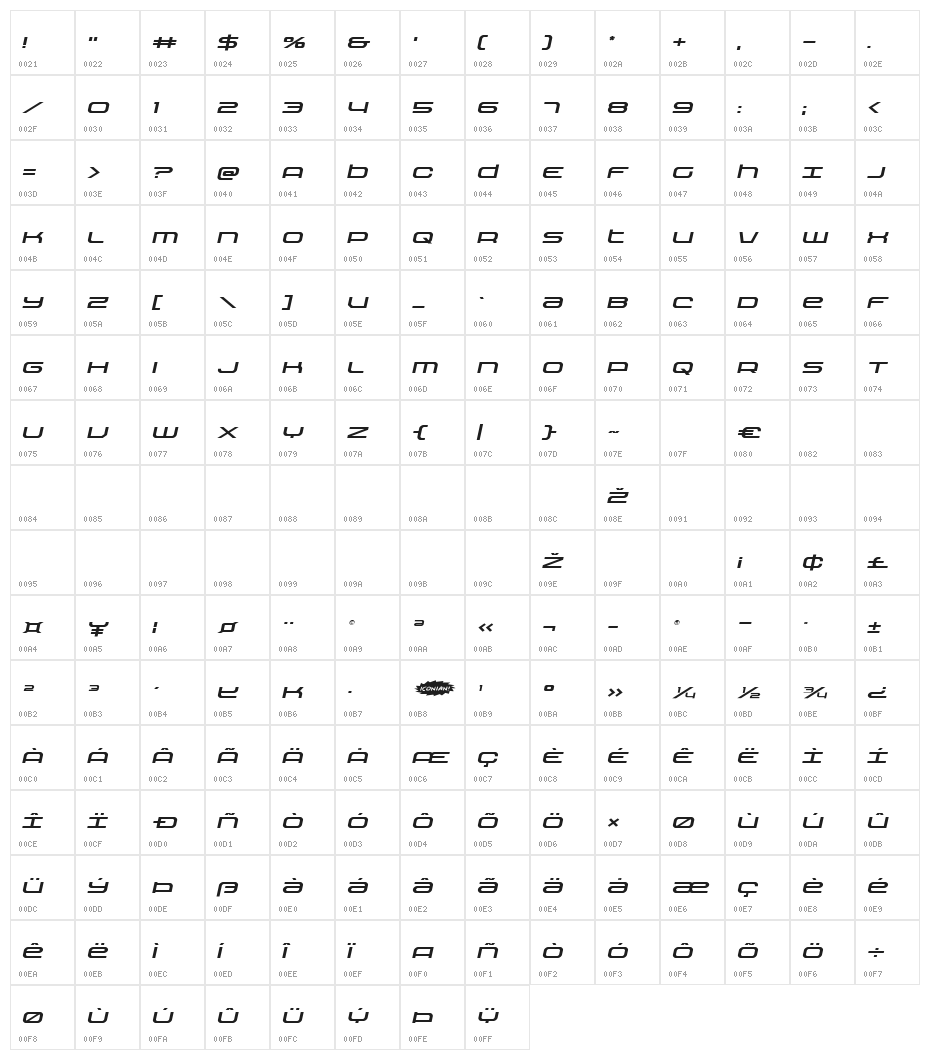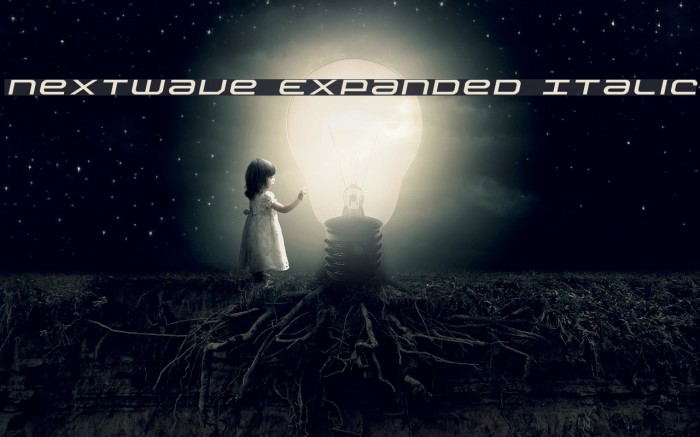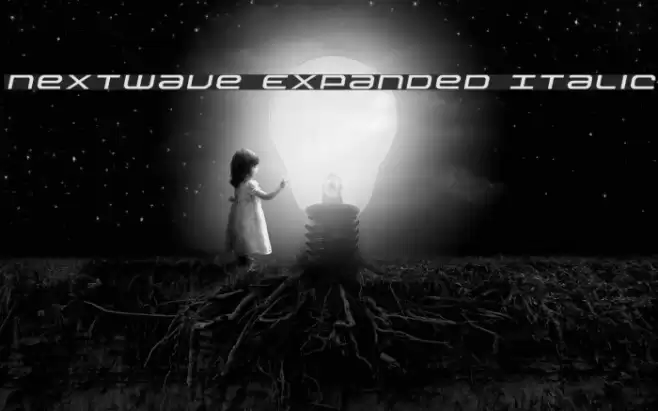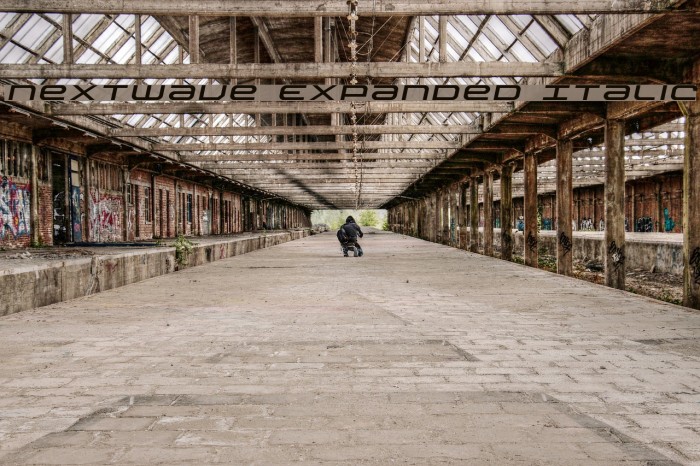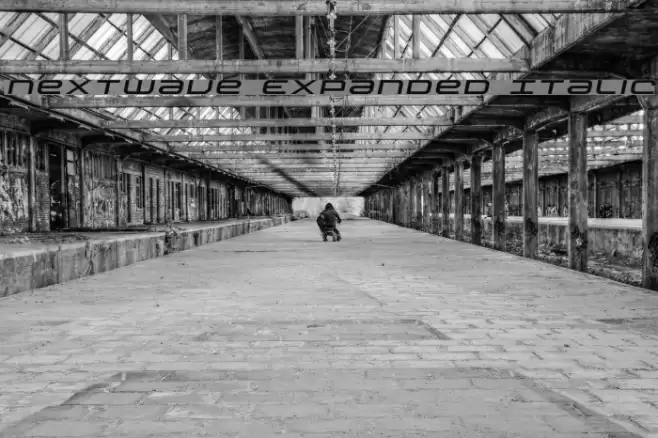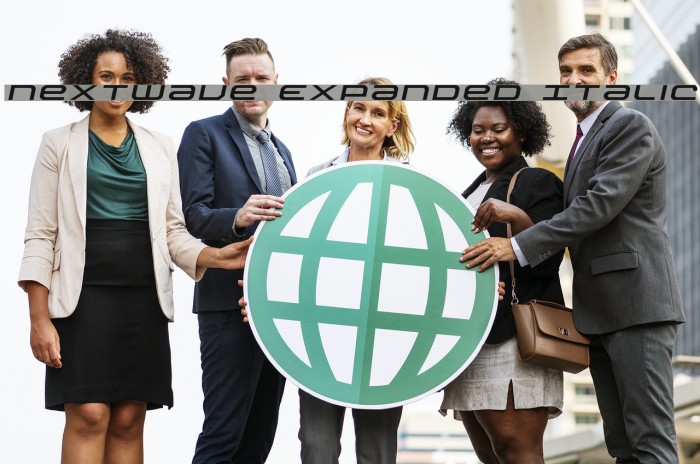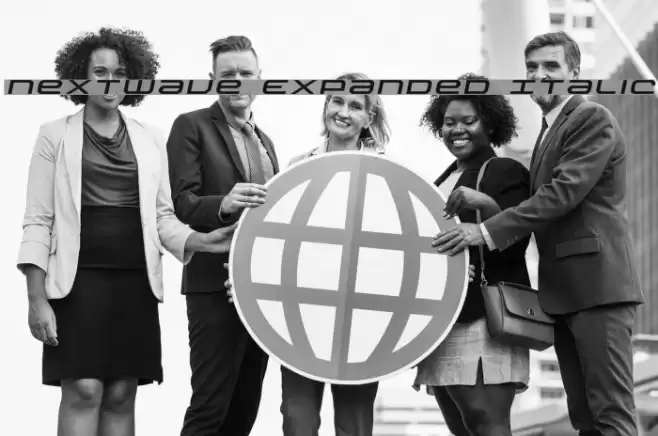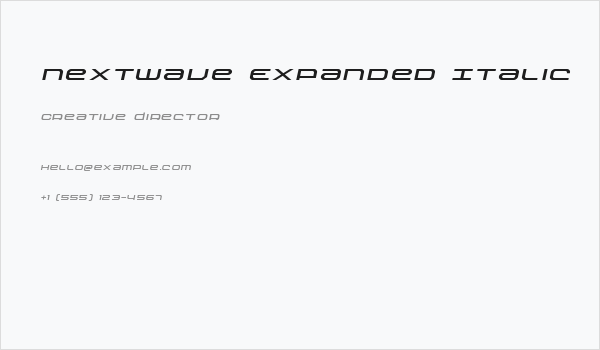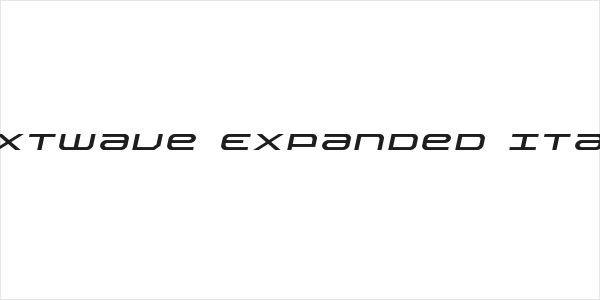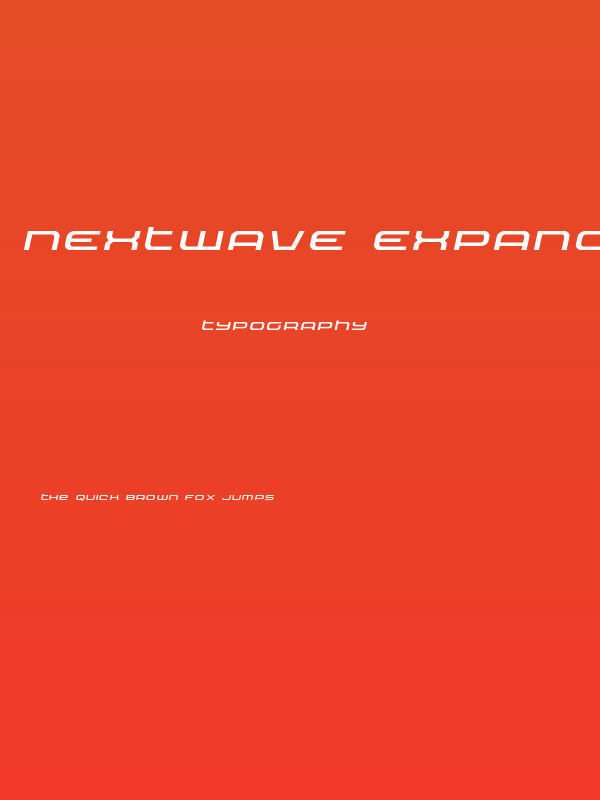
Nextwave Expanded Italic Font
Nextwave Expanded Italic Description
This font features a futuristic and sleek design, characterized by its expanded and italicized form. The characters exhibit a modern aesthetic with smooth curves and sharp angles, creating a sense of motion and dynamism. The uppercase and lowercase letters maintain a consistent style, with a slight slant that enhances the italic effect. The numerals are clear and distinct, matching the overall theme of the font. Special characters are well-integrated, maintaining the font's cohesive appearance. The design is both functional and visually appealing, making it suitable for a variety of creative applications.
| Use Case | Headlines, Logos, Digital Interfaces |
| Proposed Projects | Ideal for sci-fi themed projects, technology branding, modern advertising, and digital interfaces. |